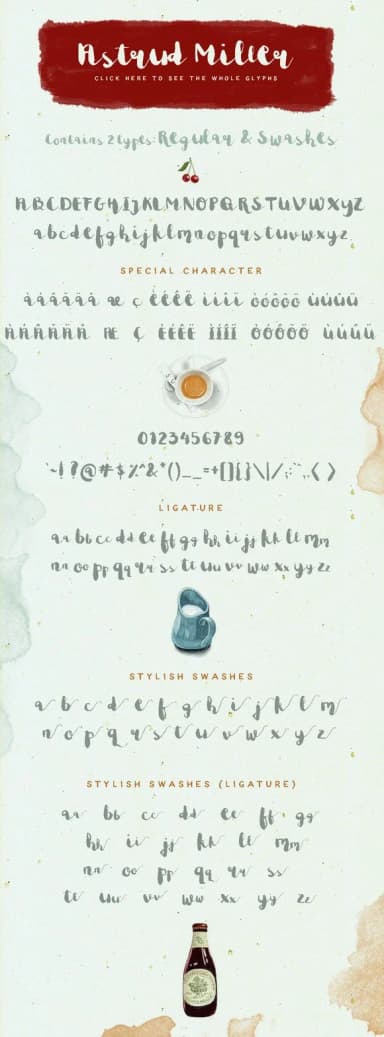
About Astrud Miller Font
Astrud Miller Font by Blue Robin Design Shop is an expressive handwritten script that combines the organic flow of hand-lettering with consistent letterform structure. The font's graceful strokes and naturally flowing aesthetic bring an authentic, personalized quality to any creative project without sacrificing legibility across different sizes and applications.
This versatile typeface excels for design work that prioritizes warmth and character. Wedding invitation suites gain instant sophistication and romance from its refined hand-lettered style, while boutique skincare packaging and artisan product labeling benefit from the handcrafted appeal that communicates care and authenticity to consumers. DIY craft sign creators and small business owners will find it particularly useful for personalized gift tags, event menu cards, and custom branding materials that demand visual personality and distinction.
The font's design translates seamlessly across both digital and print mediums, from social media graphics and brand identity work to editorial layouts and book designs. Its broad compatibility with standard design software makes it accessible for creating logo concepts, custom apparel graphics, packaging systems, and vinyl artwork projects. The authentic handwritten quality resonates with modern audiences who seek genuine, approachable design solutions. Discover Astrud Miller Font on Creative Fabrica to bring this distinctive character to your creative work.
Astrud Miller Font is a script font that shines as a display or heading face. Pair it with a clean sans-serif or serif font for body text β the contrast creates a clear hierarchy while the two styles stay balanced and easy to read.
Astrud Miller Font